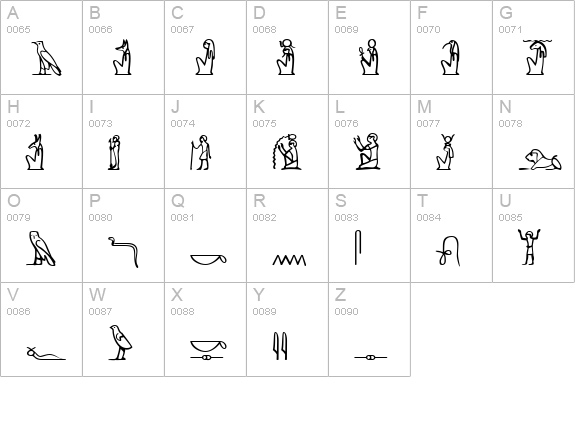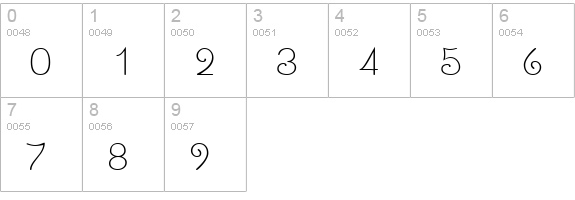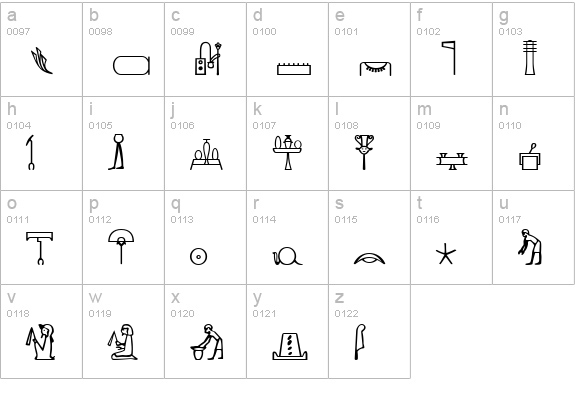
KingTut Regular Font Details
KingTut Regular is the standard, neutral variant in the KingTut typeface family \xE2\x80\x94 well suited to general body text, paragraphs, and standard typographic work.